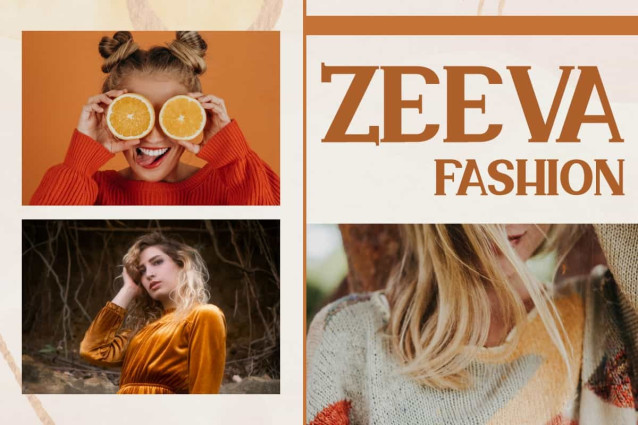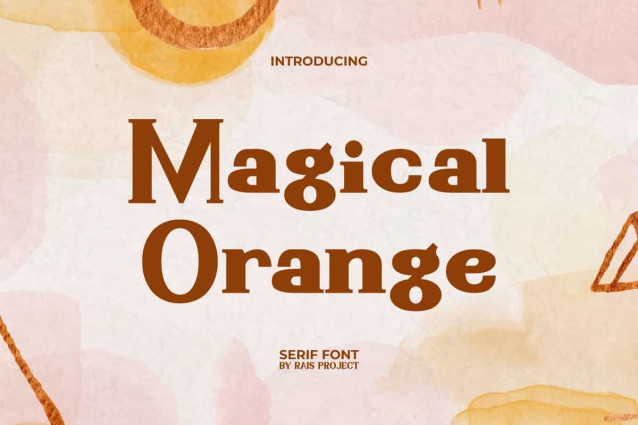
Magical Orange Font
Magical Orange Font is a beautiful and stylish serif display font, by RaisProject. This font has easy-to-read characters and pairs well with other font types in any design. It will be good for any designs, such as cover, invitation, label, poster, signage, stationery, brand image, custom design, product packaging, quotes, web, and more!
Magical Orange Font includes a full set of Uppercase and Lowercase Letters, Numerals, Punctuation, and Symbol. This font will be suitable for various industries, such as cafe, fashion, accessories, advertisement, event or festival, florist, homeware, perfume, photography, printing, publishing, real estate, etc.